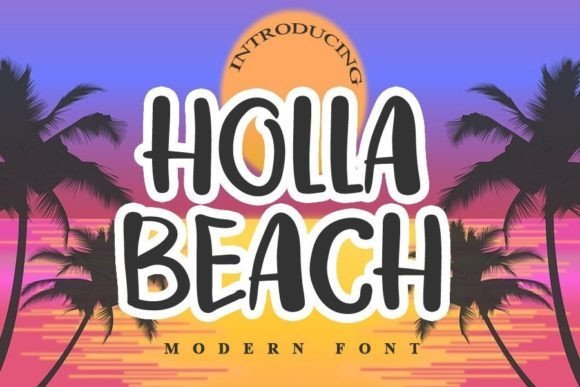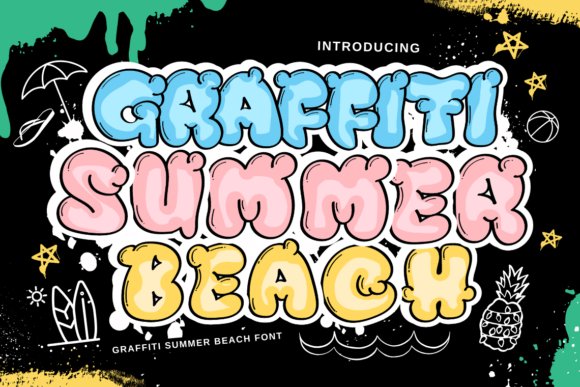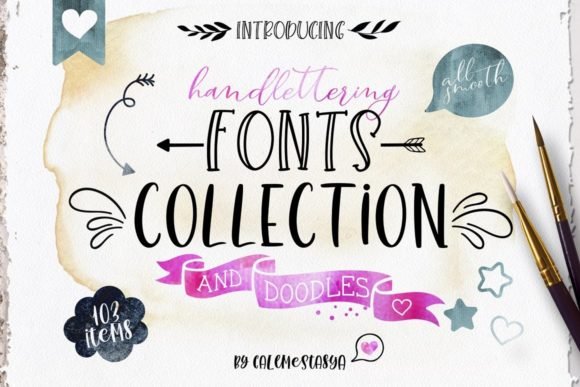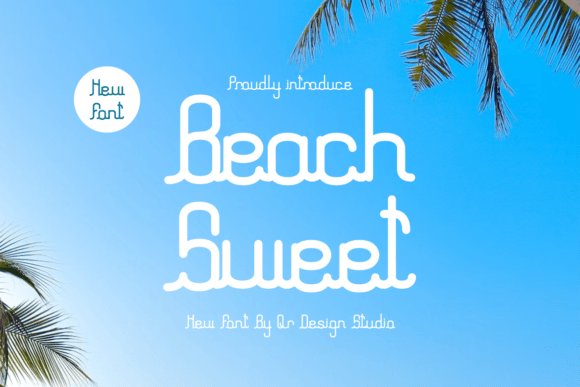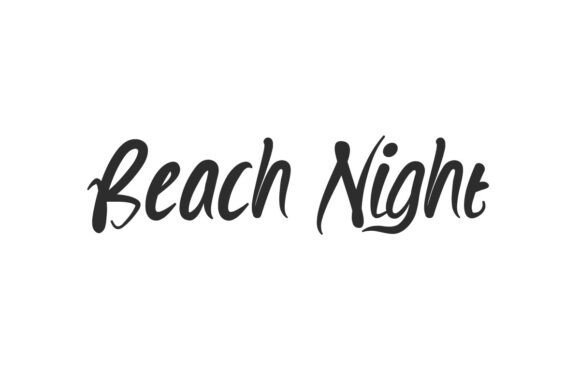
57 Top Summer Beach Font Options for Your 2026 Coastal Designs
Finding the right Summer Beach Font is essential when you want to capture the relaxed, breezy energy of the coastline in your 2026 projects. I have put together 57 high-quality options that range from fluid, ocean-inspired scripts to weathered, sandy block letters. Whether you are working on branding for a tropical resort, creating posters for a seaside festival, or just adding a seasonal touch to your social media, these typefaces provide the authentic salt-air vibe you need.
1. Ocean Font
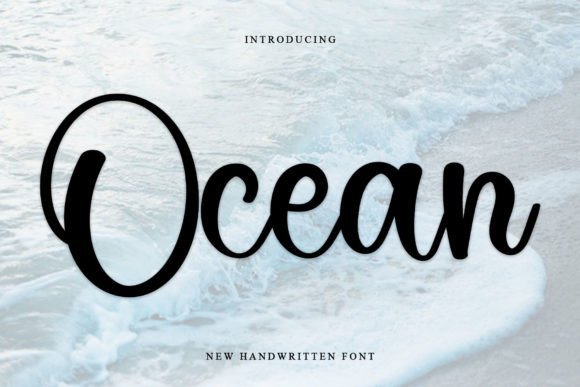
Ocean Font captures the rhythmic motion of the tides with its organic, flowing strokes and graceful curves. This script typeface is a masterclass in fluidity, offering a handwritten feel that mirrors the gentle roll of waves against the shore. Designers looking for a sophisticated summer beach font will find that its tranquil letterforms provide a sense of serenity and natural movement, making it an ideal choice for high-end boutique branding, lifestyle magazines, or editorial layouts that need a breath of fresh sea air.
Beyond its aesthetic appeal, this typeface is exceptionally versatile for nature-inspired projects and coastal-themed wedding stationery. Whether you are crafting social media quotes about the seaside or developing a visual identity for a luxury resort, Ocean Font delivers an artistic and soothing typographic experience. Its elegant ligatures and balanced weight ensure high readability while maintaining a hand-crafted charm that resonates with the beauty of the natural world.
2. Sunny Beach Font
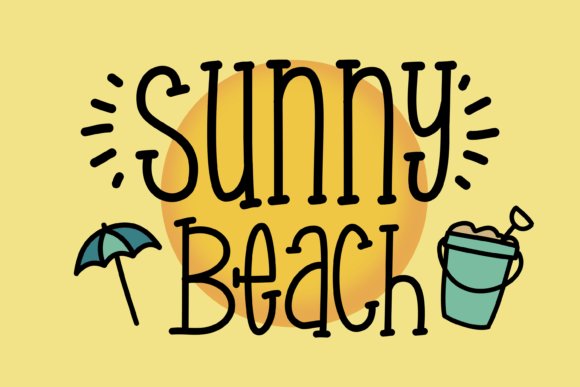
If you are searching for a summer beach font that radiates energy and pure joy, Sunny Beach Font is the ultimate creative companion. This hand-drawn script is bursting with personality, featuring quirky letterforms that instantly evoke the warmth of a tropical vacation. It is specifically designed to inject a playful spirit into your graphic design work, making it perfect for summer event posters, vibrant apparel, or cheerful social media campaigns that need to stand out with a touch of sunshine.
What truly sets this font apart is the inclusion of charming beach-themed decorative extras, such as palm trees, sun icons, and beach balls. These whimsical elements allow designers to create cohesive, illustrative layouts without needing to hunt for external assets. Whether you are designing invitations for a coastal bonfire or playful branding for a seaside surf shop, Sunny Beach provides a comprehensive and cheerful toolkit for any lighthearted summer project.
3. Beach Lovers Paradise Font
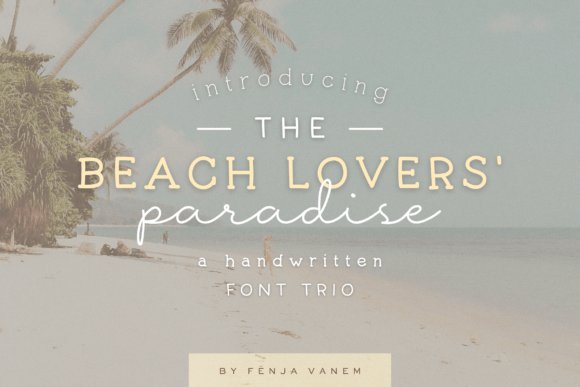
The Beach Lovers Paradise Font Trio is a comprehensive design solution for those who require more than just a single typeface to tell their story. This versatile collection blends seaside elegance with practical functionality, offering a range of styles including Regular and Bold weights to handle everything from striking headlines to legible body text. As a robust summer beach font option, it bridges the gap between sophisticated script aesthetics and clear, modern design, ensuring your layouts remain polished across both digital platforms and print mediums.
This trio is particularly well-suited for international branding projects, thanks to its extensive multilingual support. The Seawashed component within the package offers a crisp clarity that is rare in thematic scripts, making it an excellent candidate for user interfaces, travel brochures, and text-heavy promotional materials. From high-fashion coastal labels to rustic beach house signage, this font bundle provides the flexibility and professional edge needed to create a cohesive visual identity.
4. Sand Beach Font
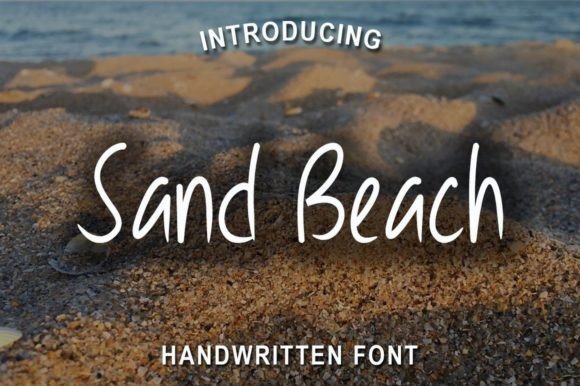
Sand Beach Font is a beautifully crafted script that embodies the airy essence of a Summer Beach Font. Its sweet and cursive strokes evoke memories of warm afternoons and coastal escapes, making it an ideal choice for romantic projects. Whether you are designing wedding invitations or a boutique brand identity, this font adds a joyful, handwritten touch that feels both personal and polished.
Beyond its aesthetic appeal, this versatile script is perfectly suited for high-end marketing promotions and fashion lookbooks. Its gentle curves offer a fancy yet casual elegance that works seamlessly across greeting cards and social media graphics. By incorporating this typeface into your digital toolkit, you ensure your designs maintain a sophisticated, sun-drenched vibe that resonates with audiences looking for an authentic, laid-back feel.
5. Sand Beach Font
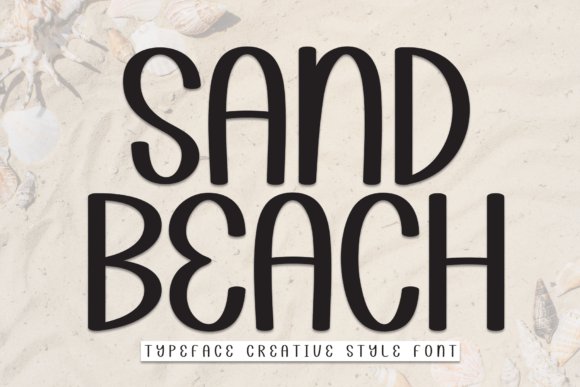
If you are searching for a casual handwritten style that captures a relaxed and friendly vibe, this version of Sand Beach Font is a standout selection. With its natural, flowing strokes, it mimics the effortless movement of waves, making it a quintessential Summer Beach Font for modern creators. It is particularly effective for personal projects and social media assets where a sense of warmth and authenticity is paramount.
This font brings an easygoing charm to any layout, from heartfelt invitations to lifestyle blog headers. The organic flow of the letters ensures a readable yet artistic appearance that does not feel overly formal. Use it to create a welcoming atmosphere in your digital designs, allowing the charming, handwritten details to provide a human touch to your seasonal campaigns and community-focused branding.
With these 57 distinct choices, finding the perfect Summer Beach Font for your next layout is easier than ever. These styles help bridge the gap between simple text and a fully immersive coastal experience, ensuring your 2026 designs look professional and inviting. I hope this collection gives you the creative spark needed to make your upcoming seasonal projects a huge success.